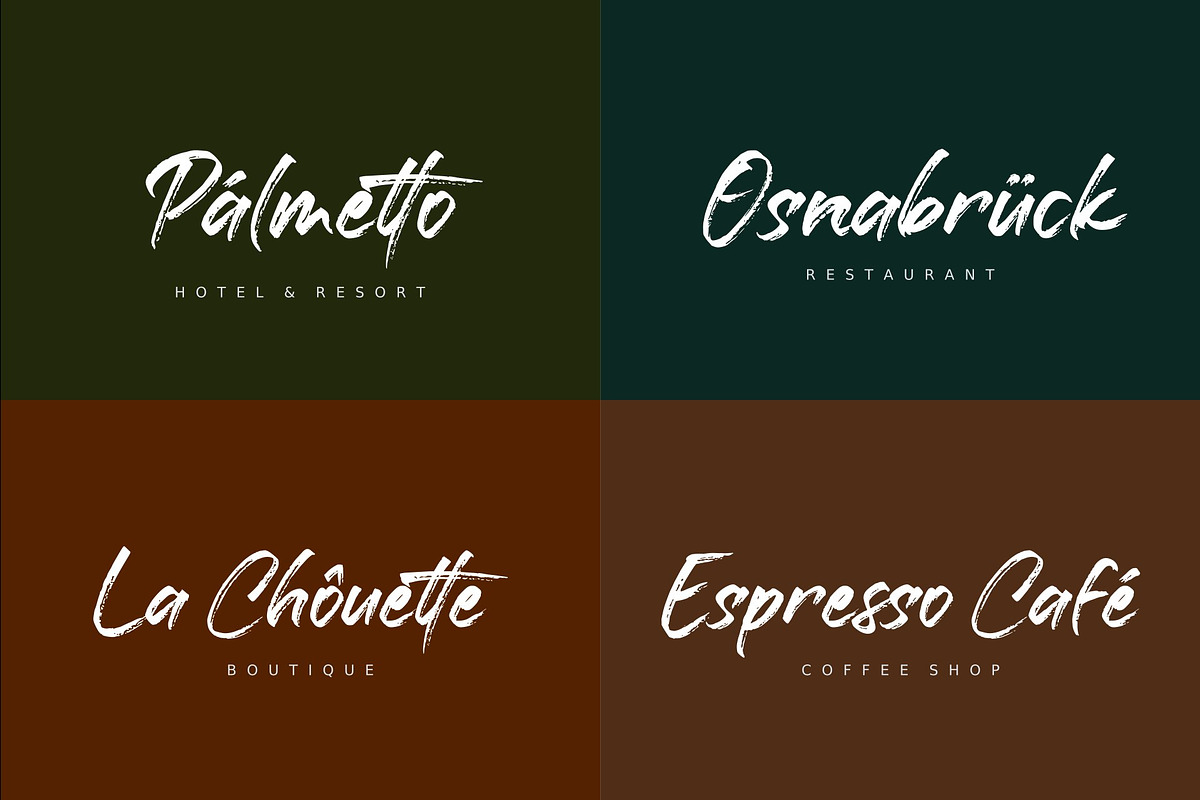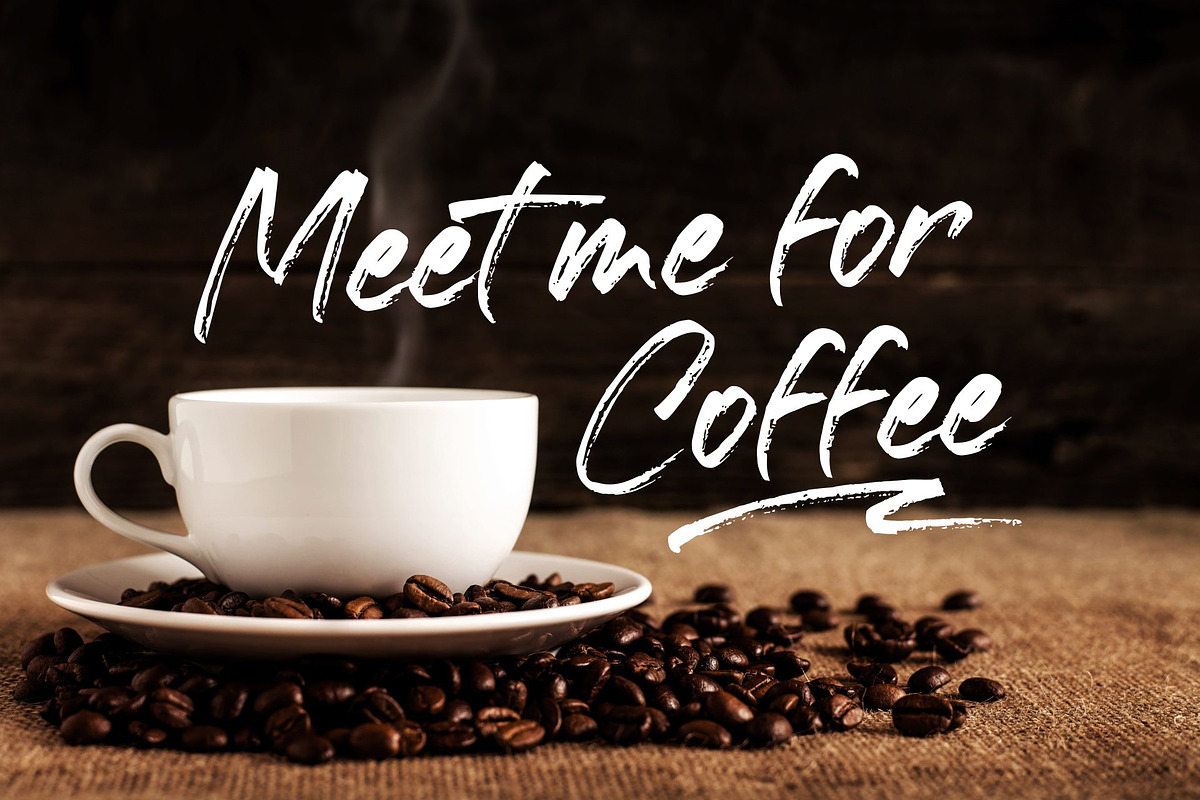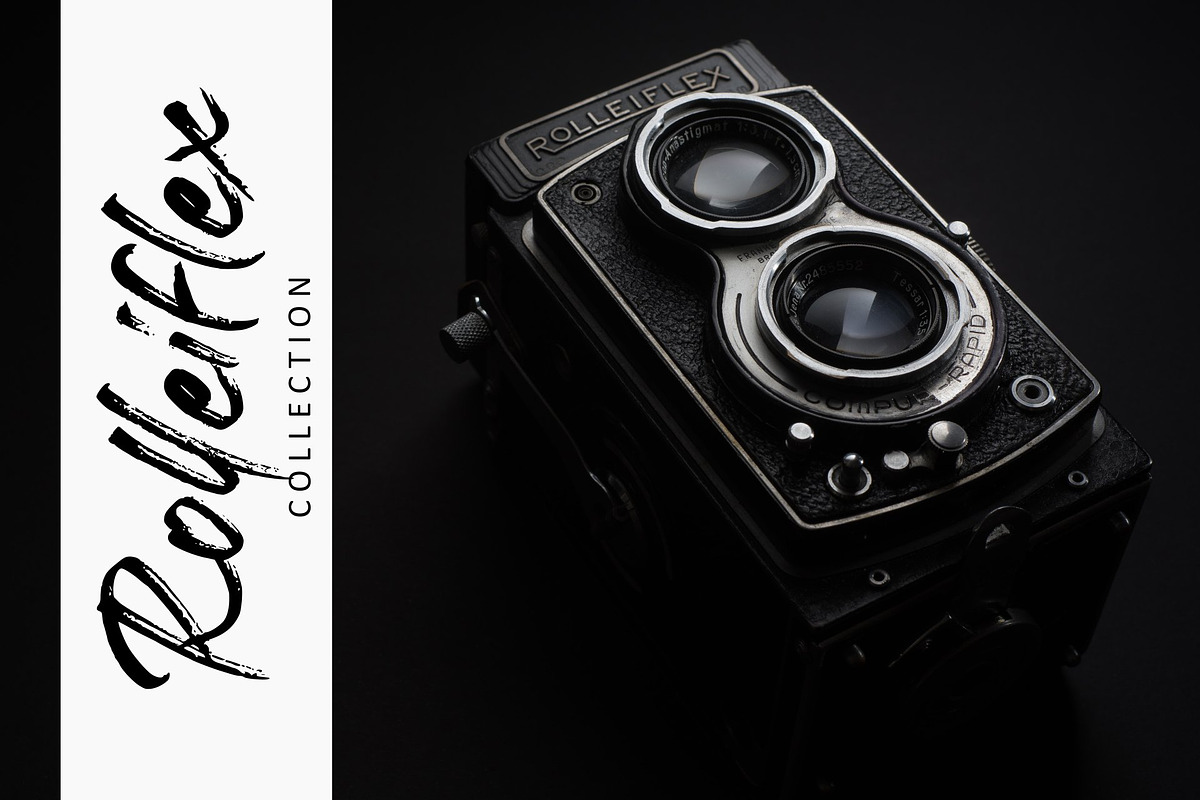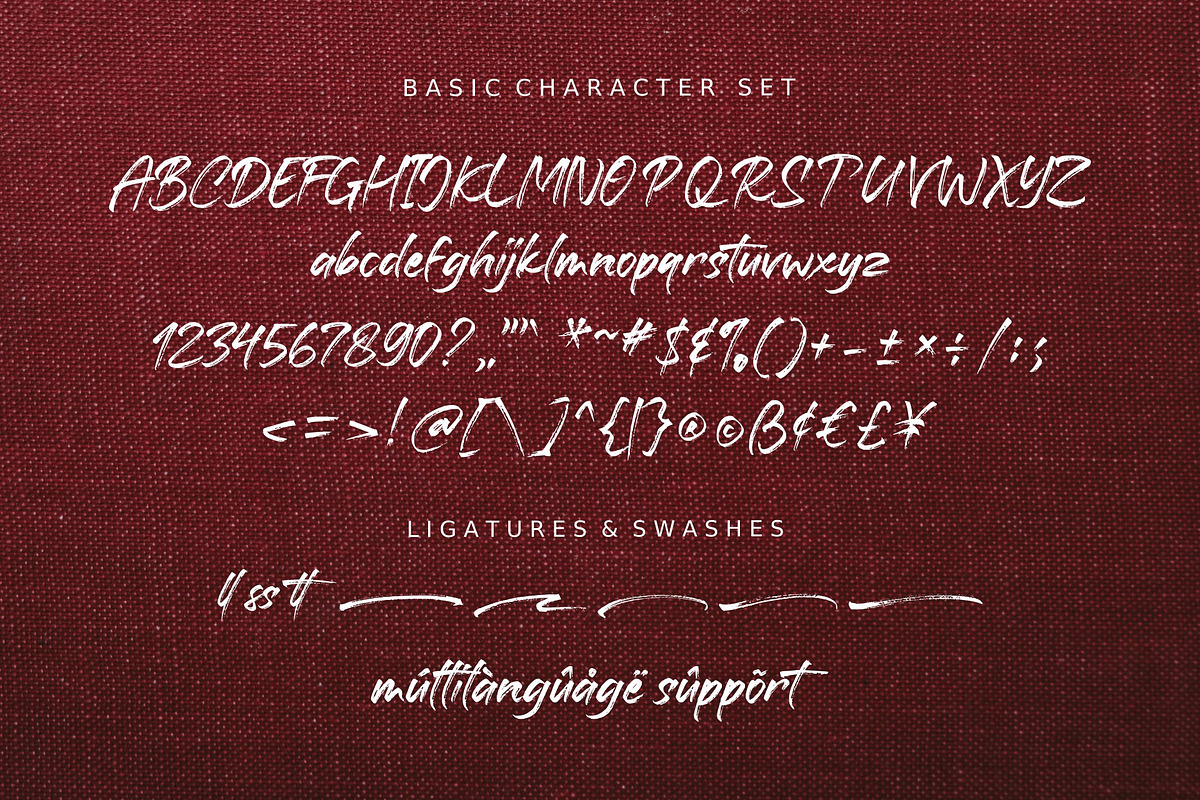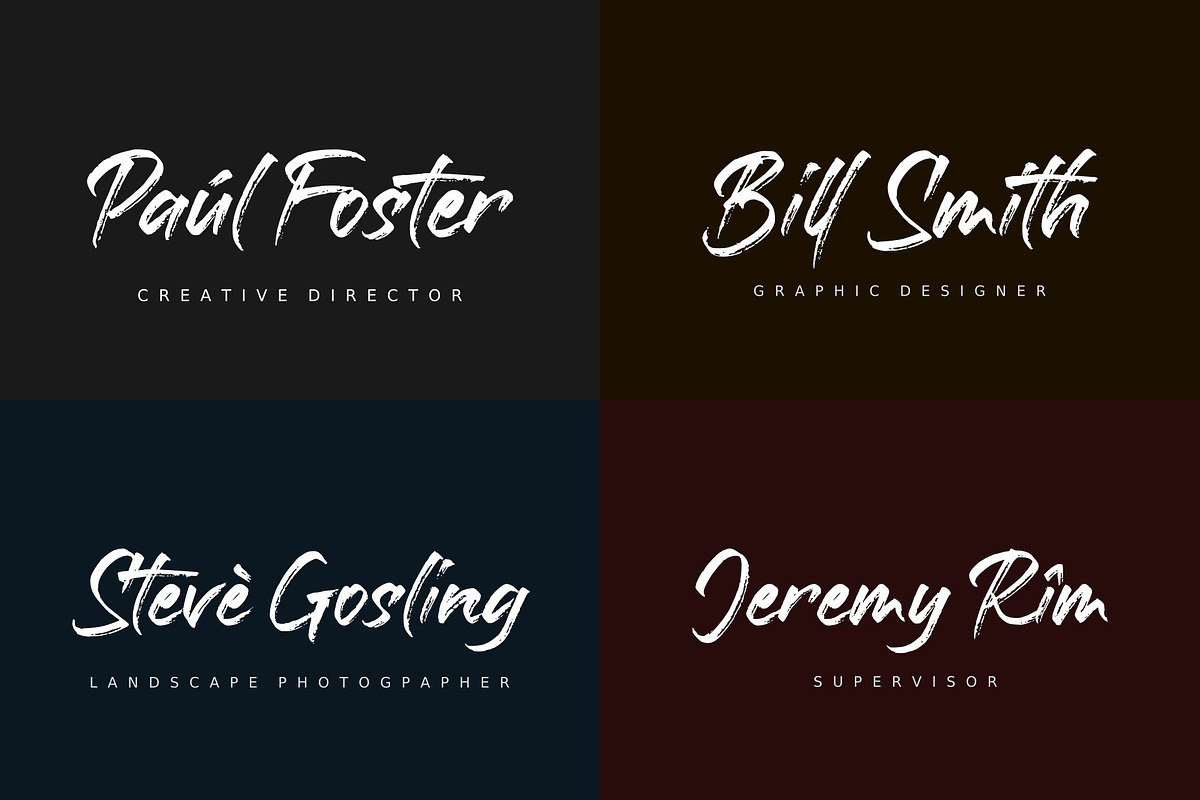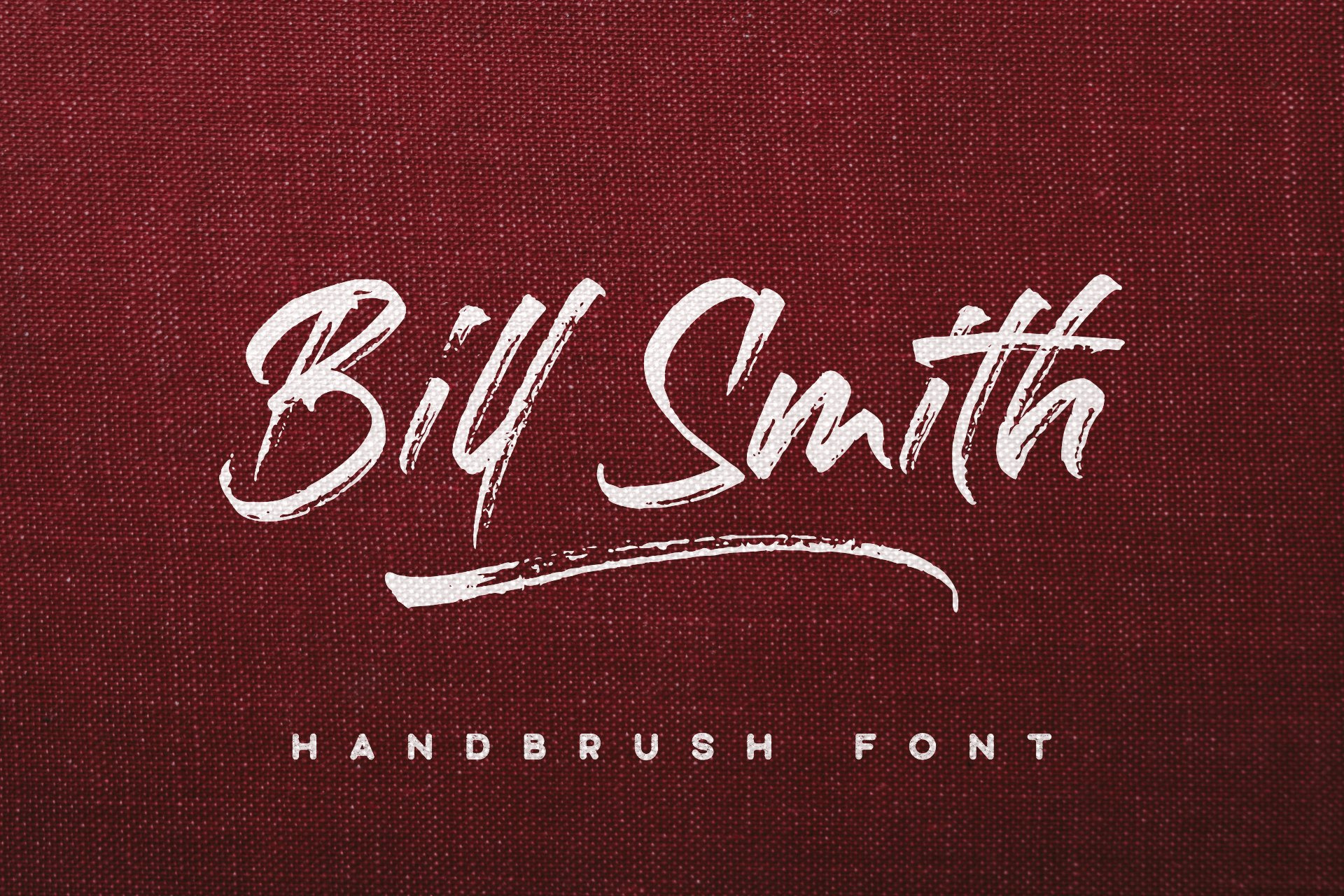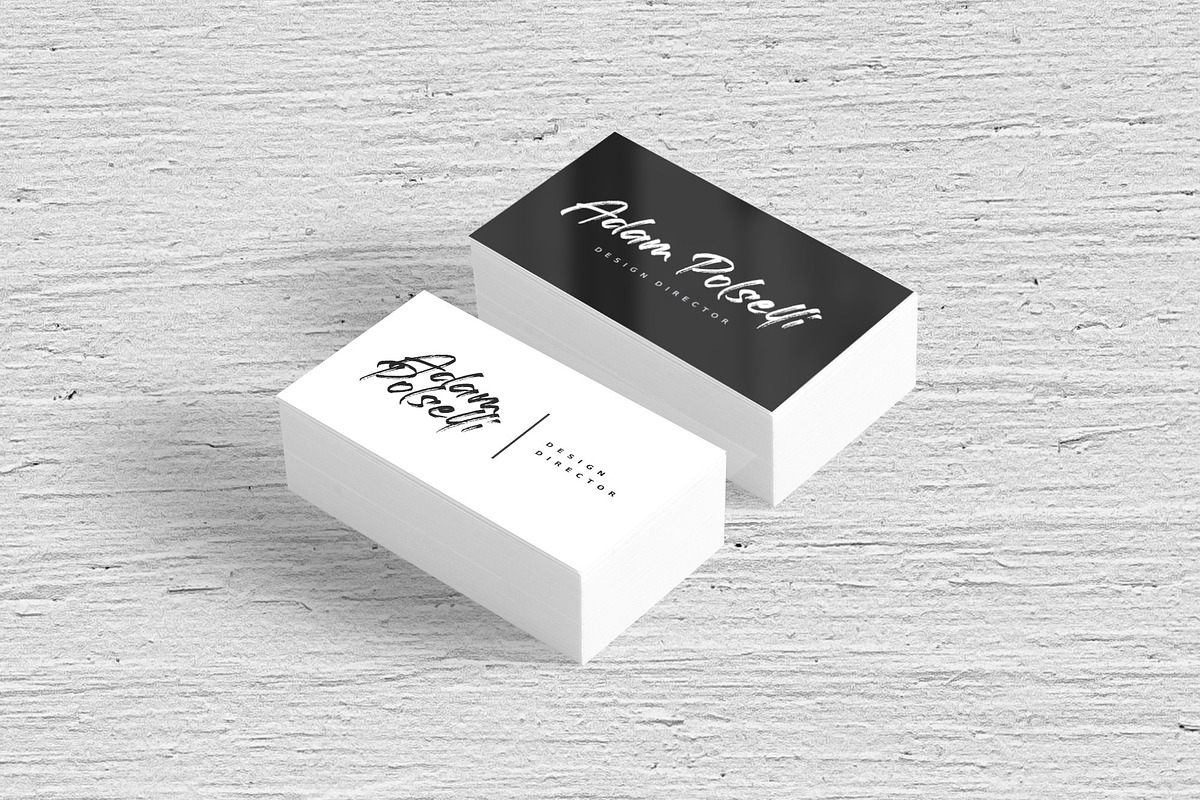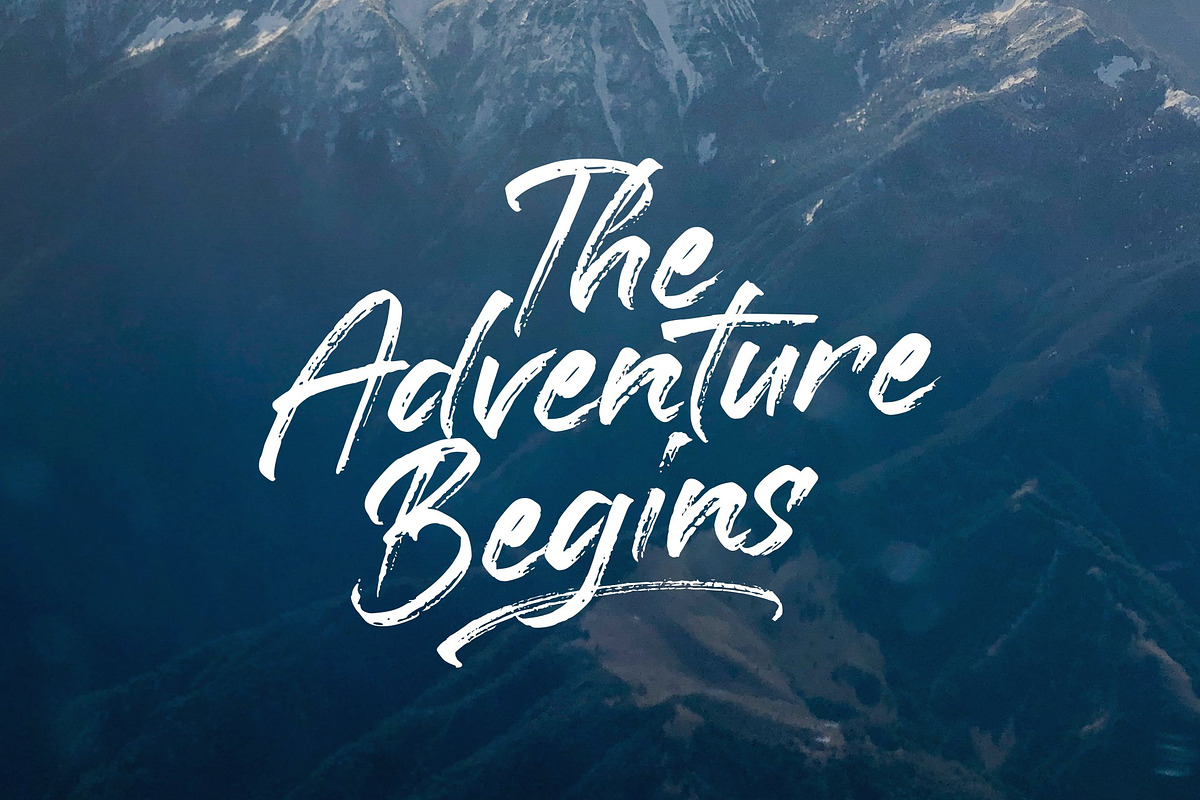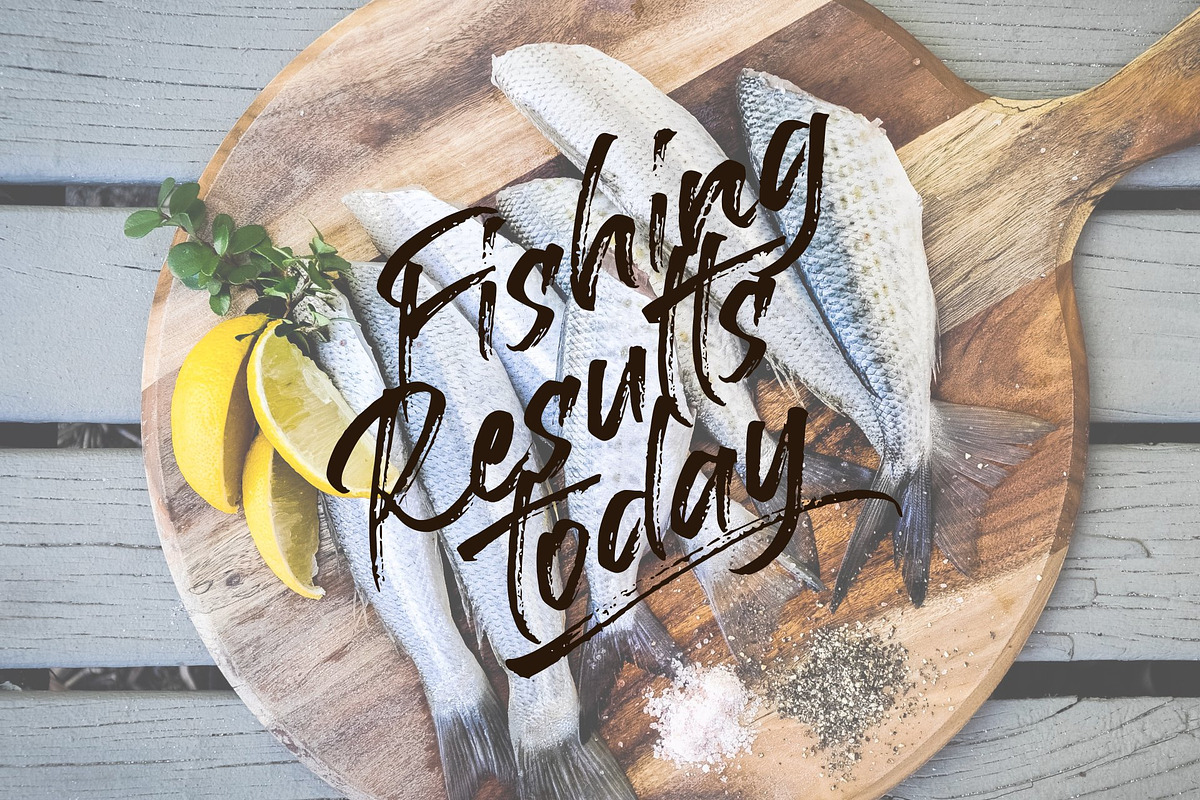
Bill Smith | Handwriting Font
Bill Smith is a quick brush writing script with organic textures and swashes giving a stunning feel to any of your design projects! It’s perfect for branding, poster designs, business cards, newsletters, stationery, logos, packaging, designs, and more.
Features Included:
- Number & Punctuation
- Multilanguage Support